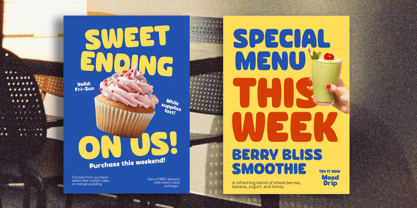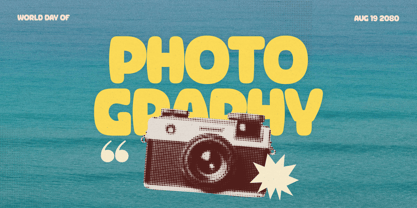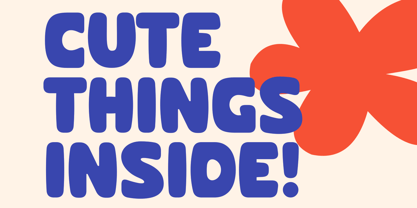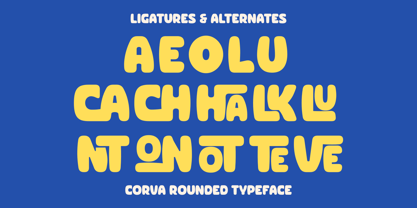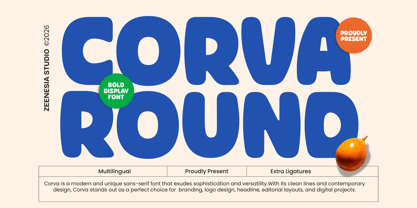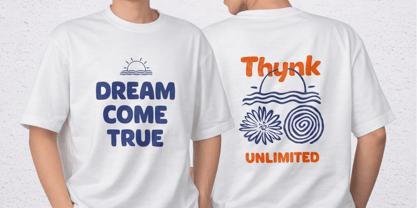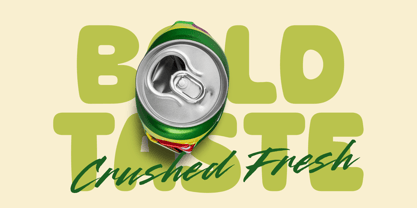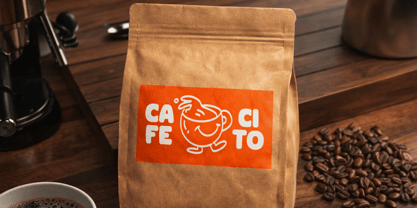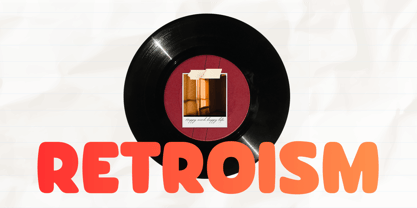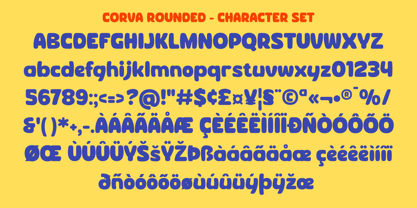
Corva Round
La famille de polices Corva Round a été conçue par Doni Purwoko et publiée par Zeenesia Studio. Corva Round contient 1 styles. En savoir plus sur cette famille
Corva Round is a modern rounded display font that blends bold structure with smooth, friendly curves. Its clean and playful style makes it perfect for creating eye-catching typography while keeping a modern and approachable feel. Corva Round works beautifully for branding, headlines, packaging, and digital design projects. Perfect for: • Logos & Branding • Posters & Headlines • Packaging Design • Social Media Graphics • Editorial Layouts